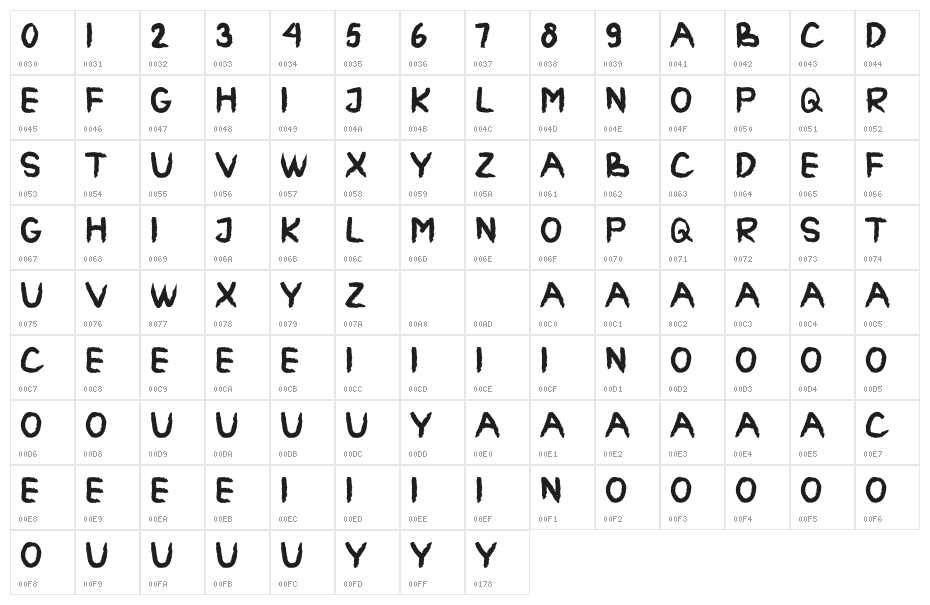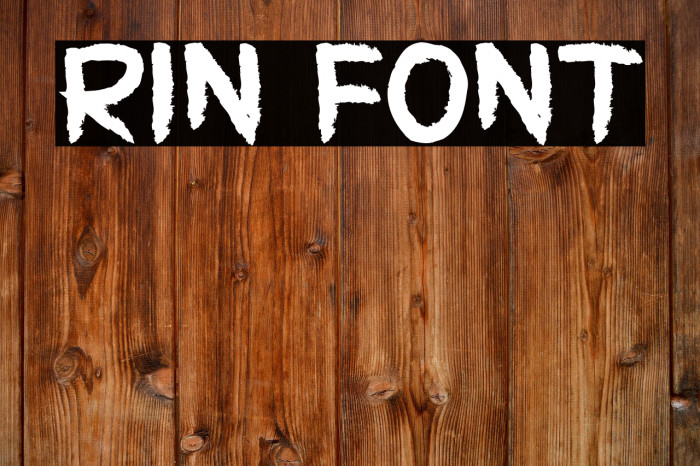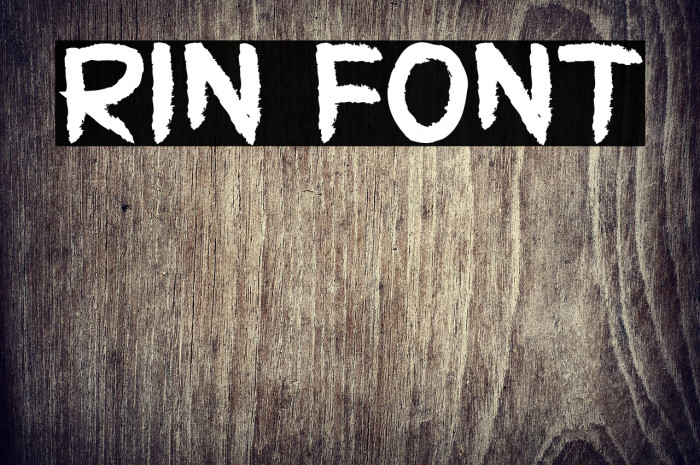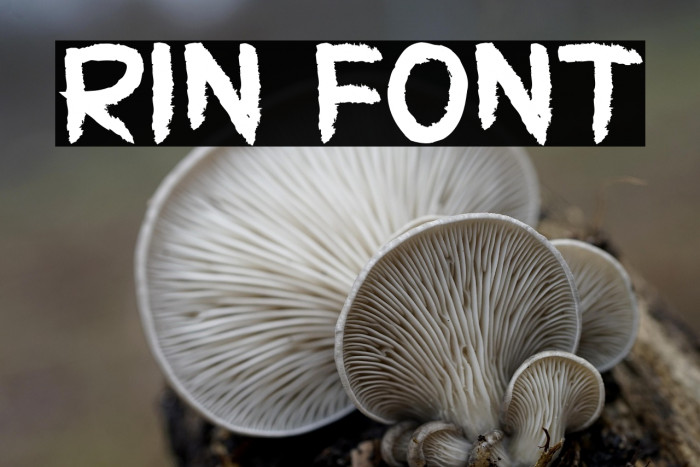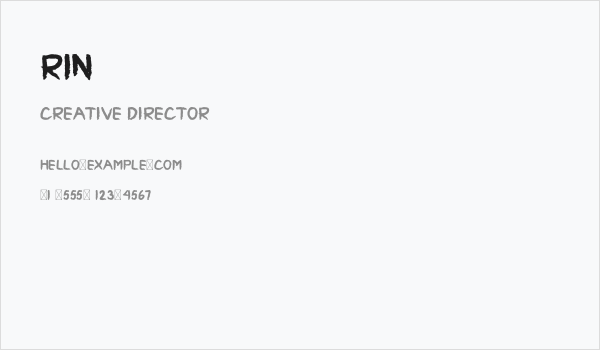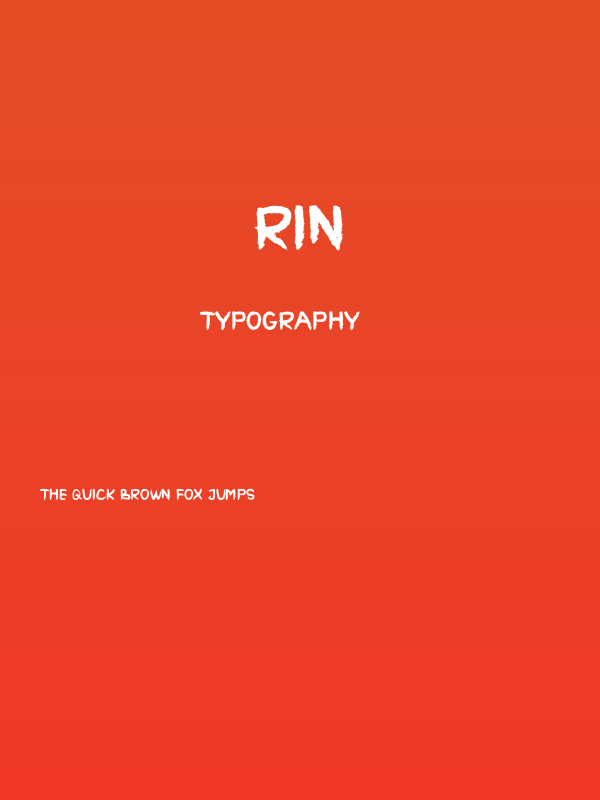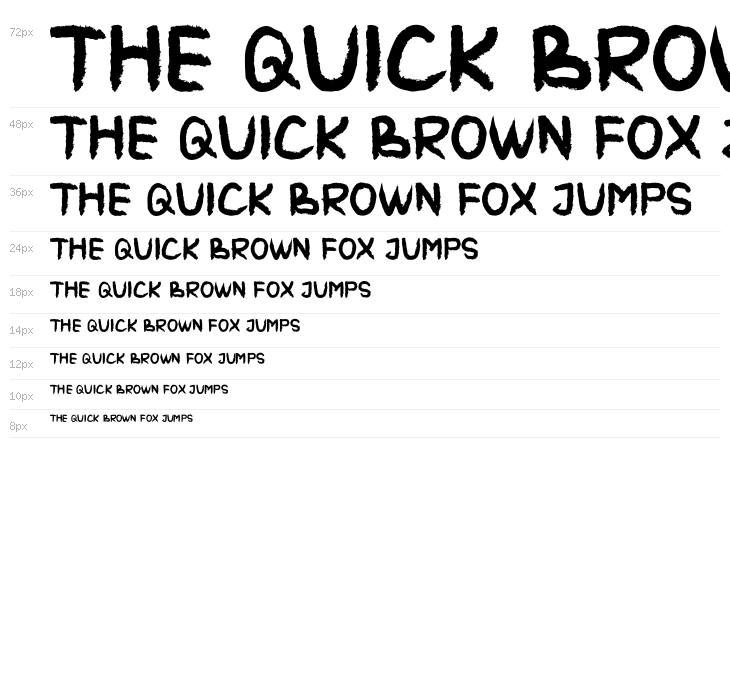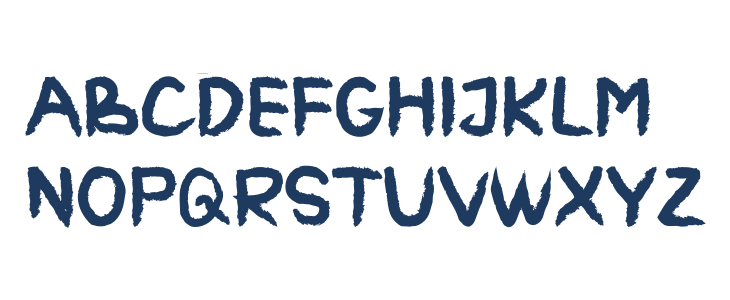
RIN Font
RIN Description
This font features a bold, brush-like appearance with a hand-drawn aesthetic. The letters are characterized by uneven strokes and a slightly rough texture, giving it an organic and dynamic feel. The uppercase and lowercase letters maintain a consistent style, with a playful and artistic flair. The numbers follow the same design principles, ensuring uniformity across all characters. This font's unique style makes it stand out, ideal for projects that require a personal touch or a creative edge.
| Overall Style | Artistic |
| Use Case | Logos, Posters, Creative projects |
| Proposed Projects | Ideal for creative projects such as posters, invitations, branding, and artistic designs where a personal and dynamic touch is desired. |